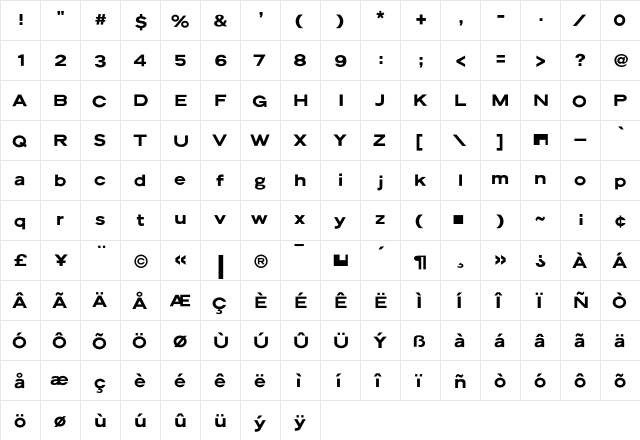
Lunar Orbiter
Lunar Orbiter Font Details
StyleOrbiter
Design Context for Lunar Typeface
Lunar offers clean, dependable letterforms without strong stylistic allegiance, making it a practical choice for designers who need flexibility.